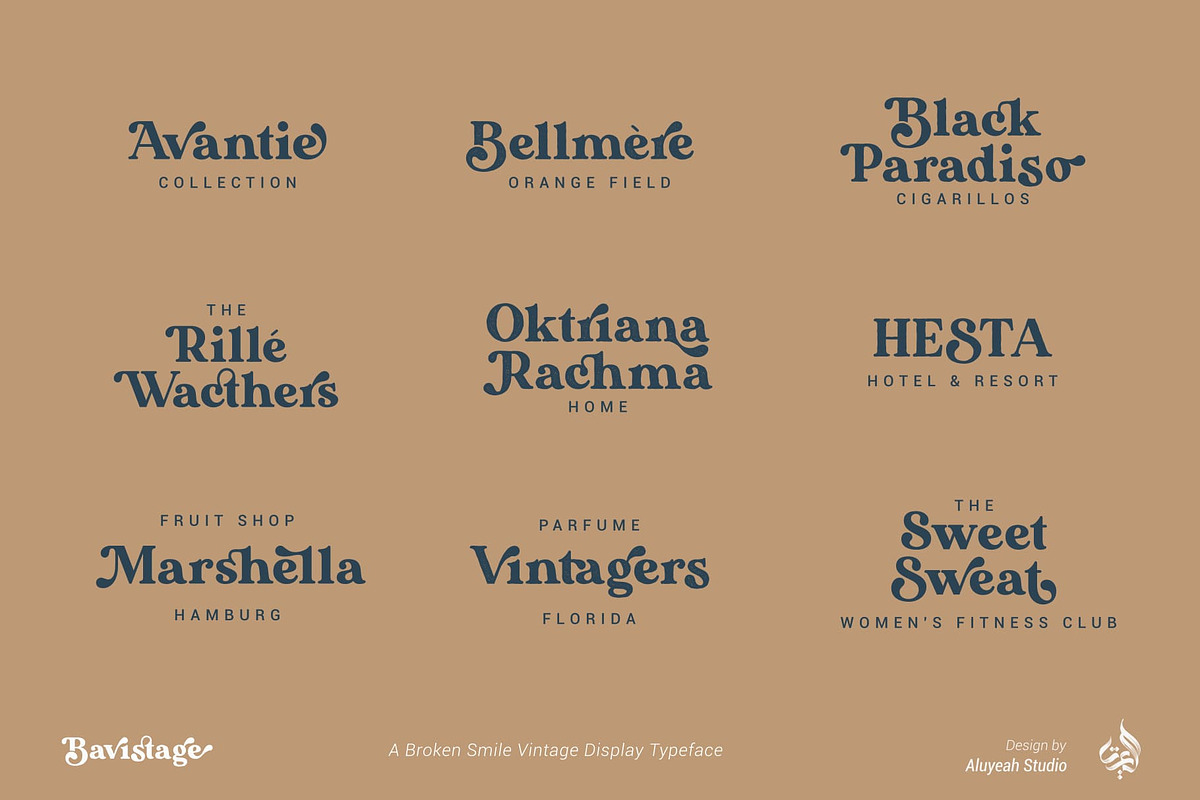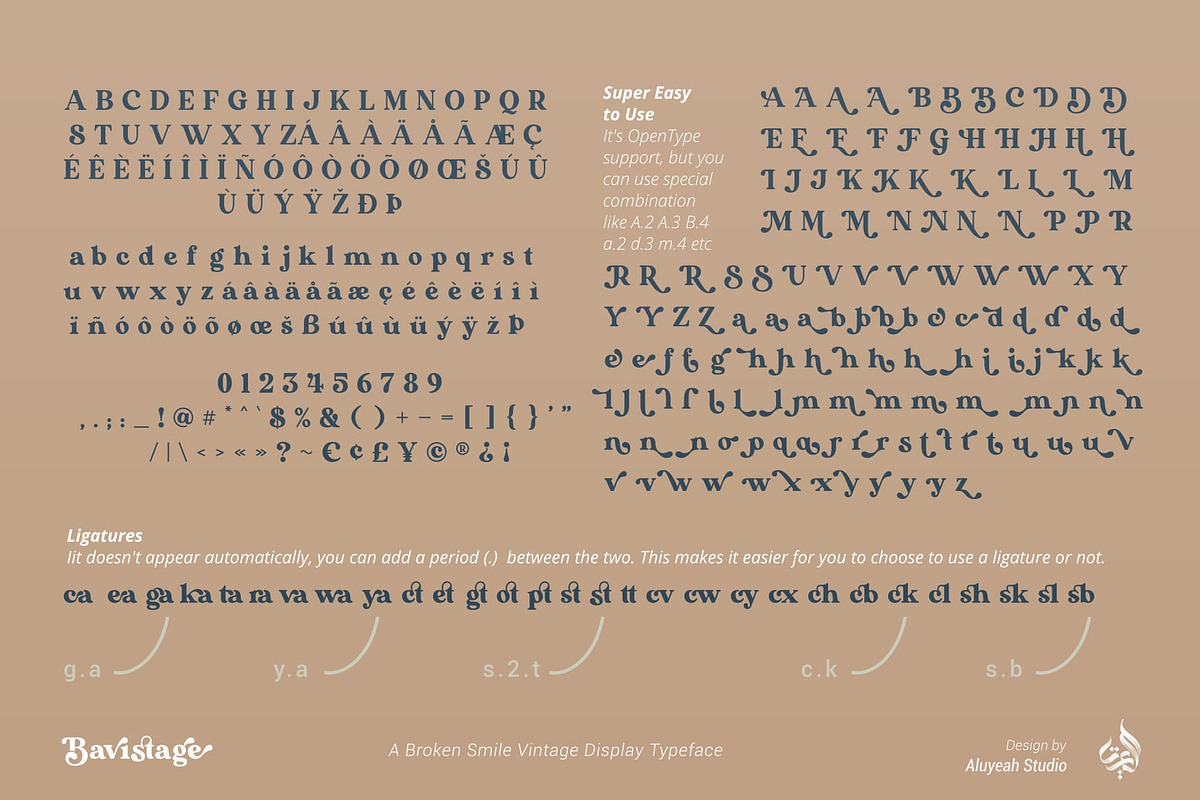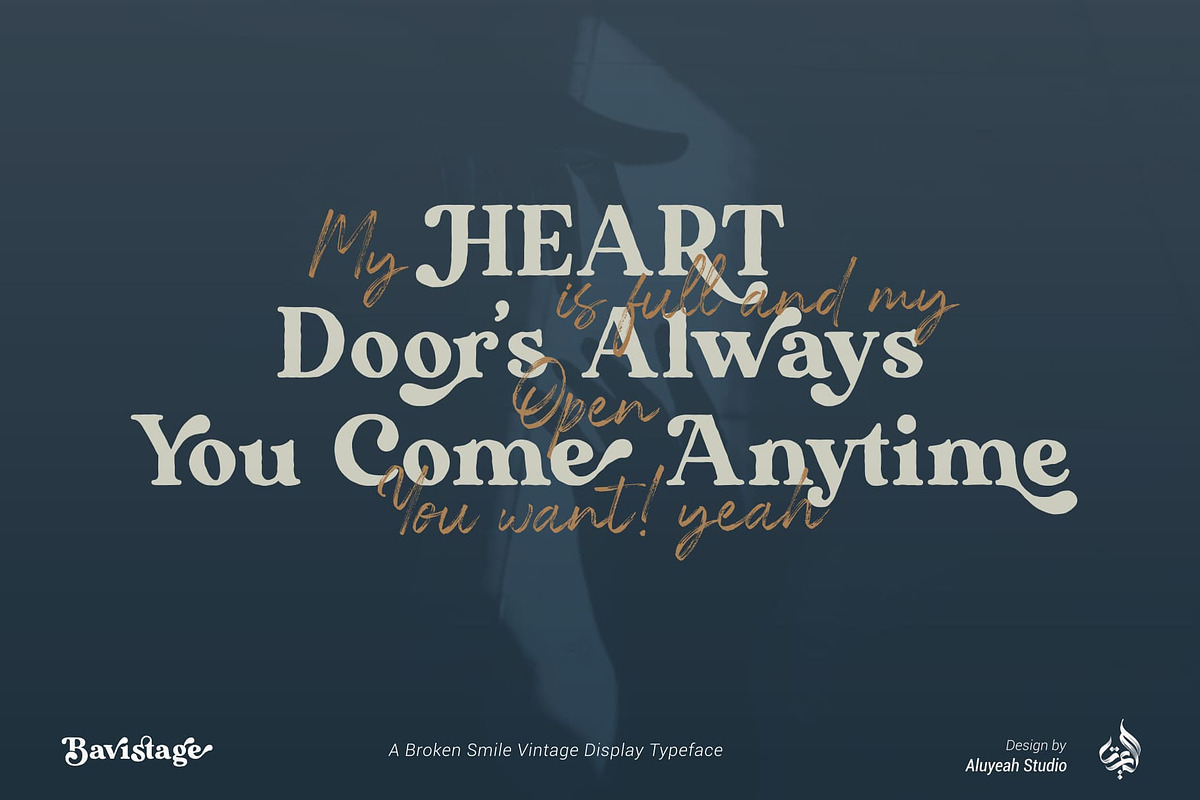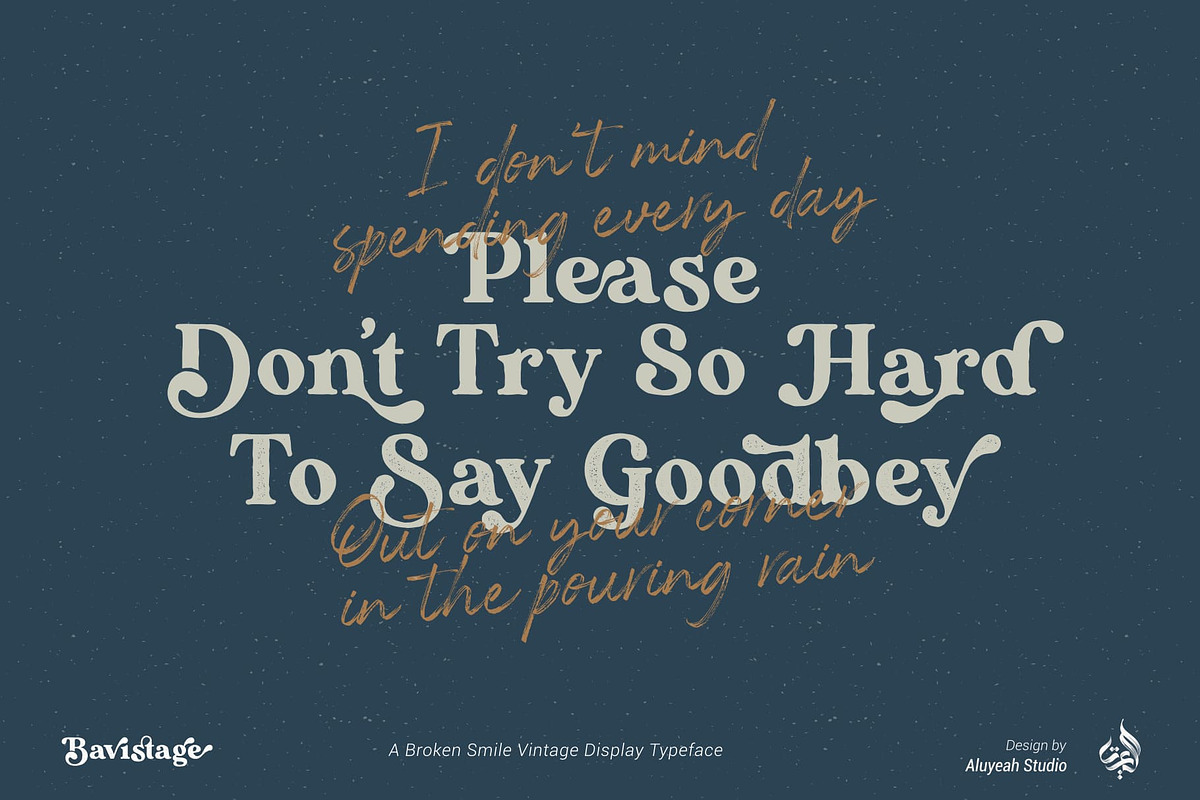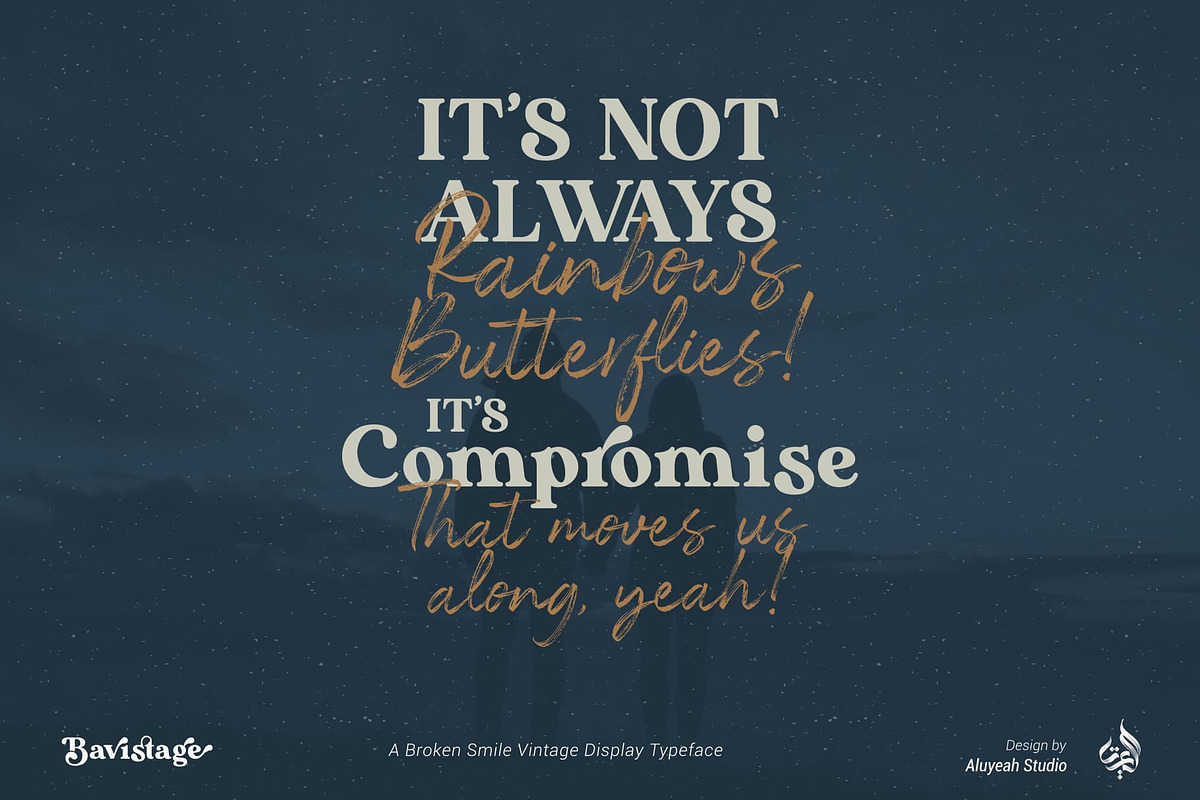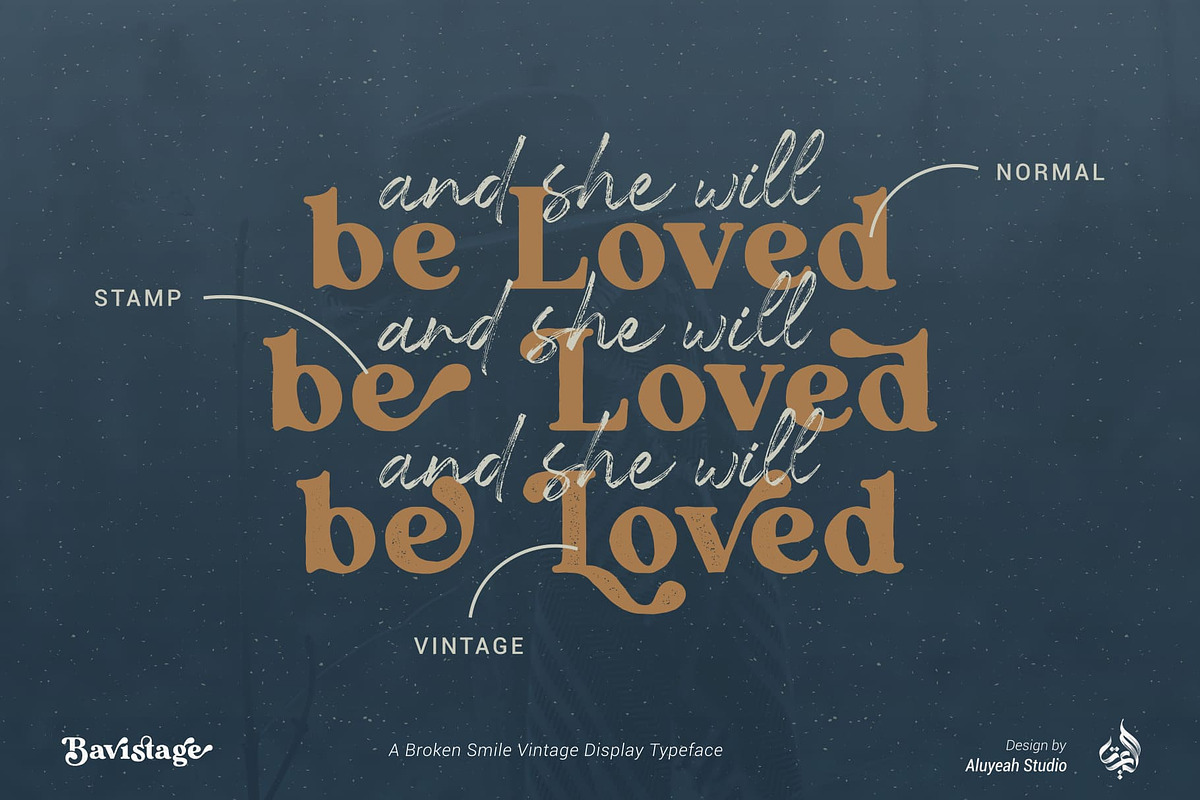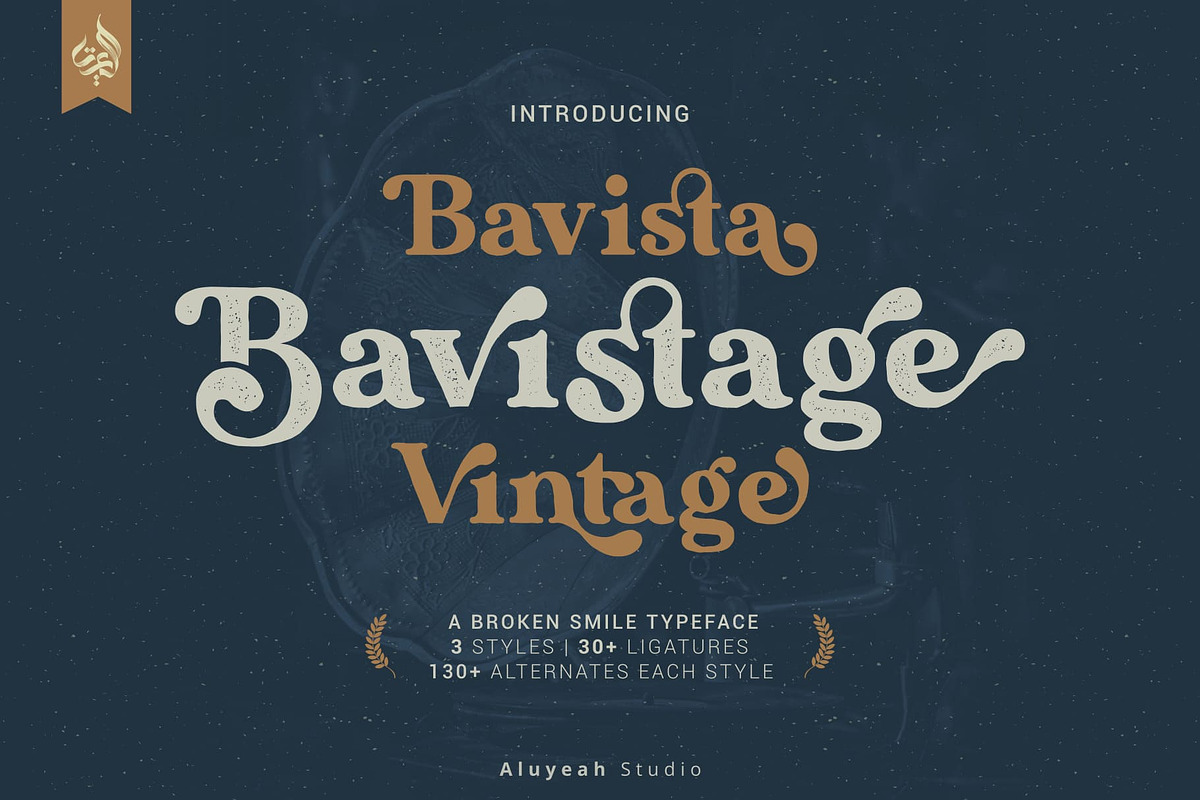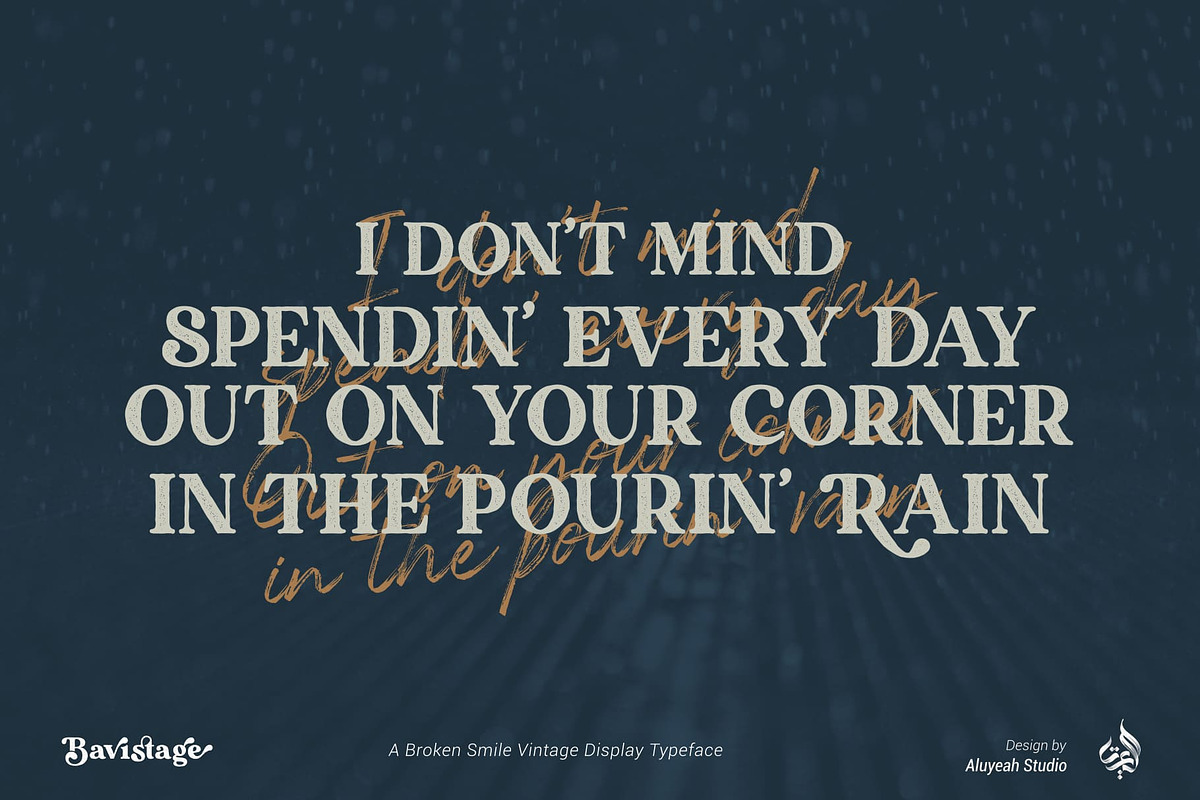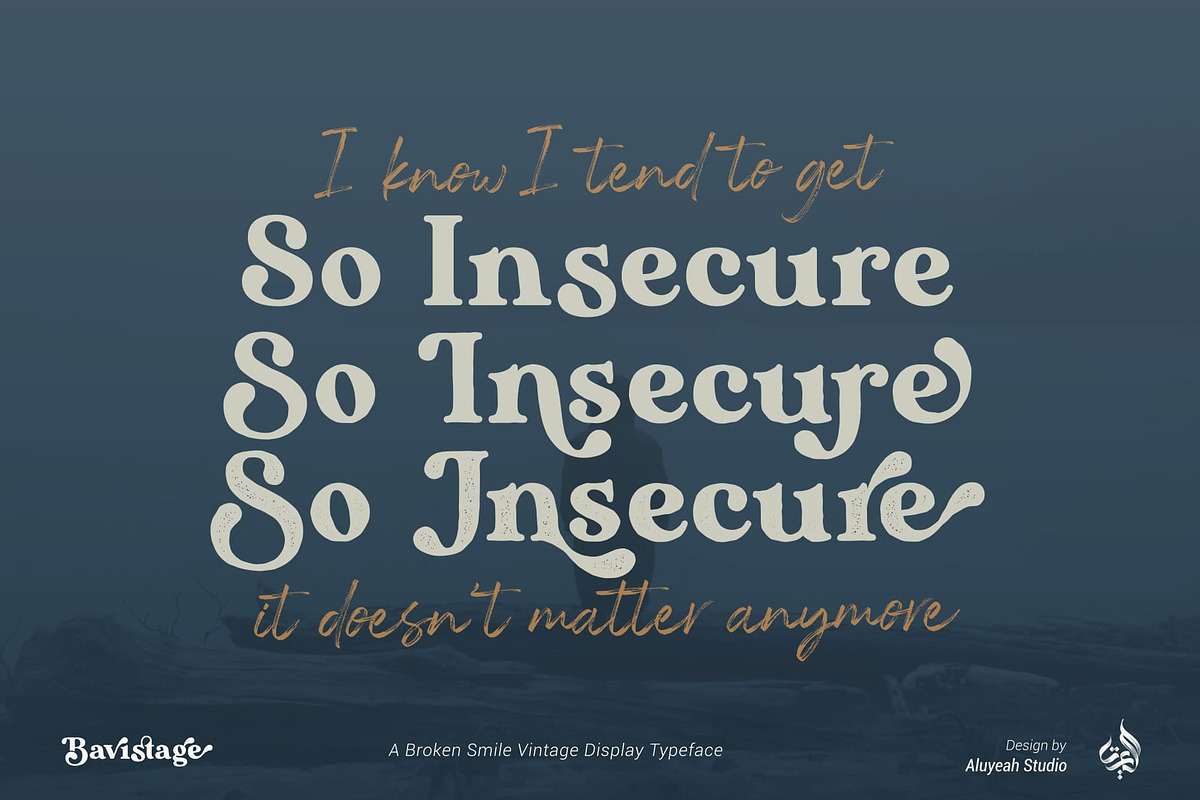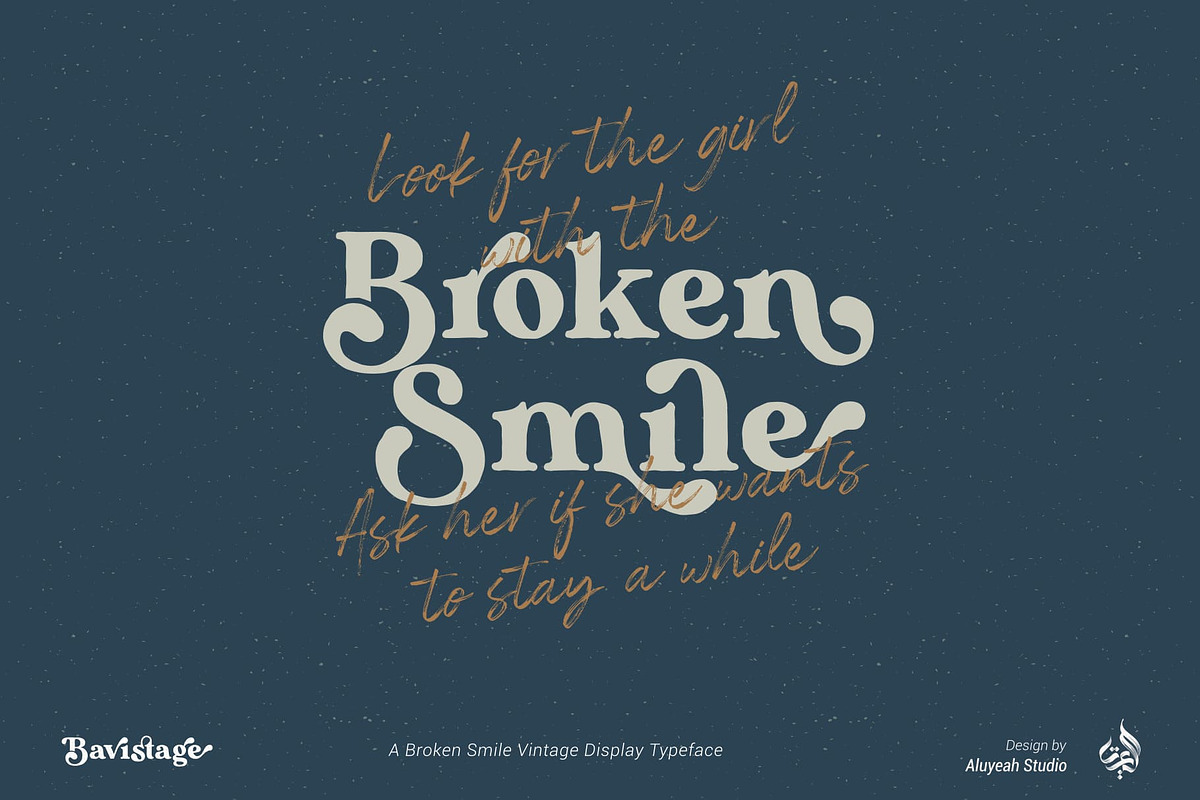
Bavistage
Hallo Aluyeaholic! Introducing Bavistage, a broken smile typeface. Inspired by the vintage vibe of a girl's broken smile. It gives you past memories, disappointments and happiness at the same time.
Coming with 3 styles, and each style has stunning 130+ alternatives, 30+ ligatures and it's super easy to use.
- OpenType support
- Multilingual support (15 languages)
- Super Easy to Use alternates - It's OpenType support but you can easily call alternates character using special combination like A.2 R.3 h.5 etc so you don't need special software.
To get results like the preview just type B.4av.3is.2.tag.2e.3